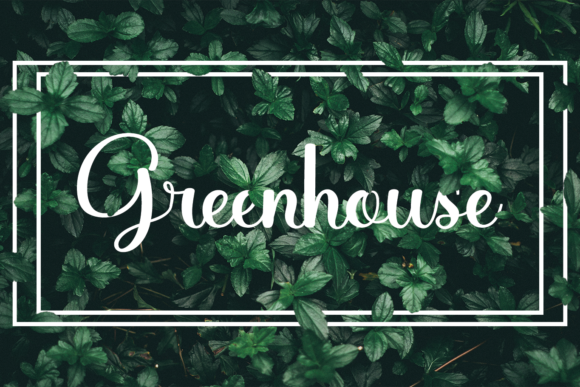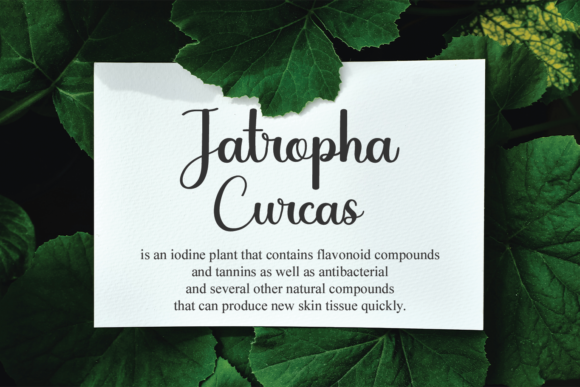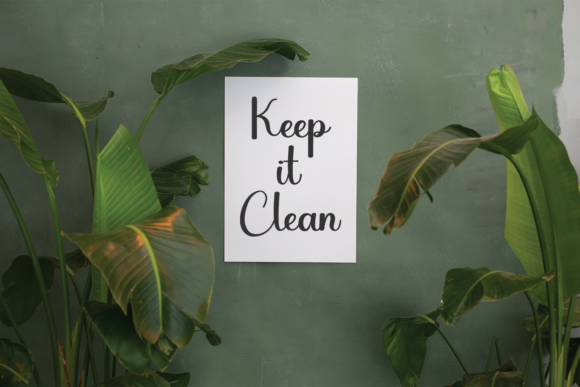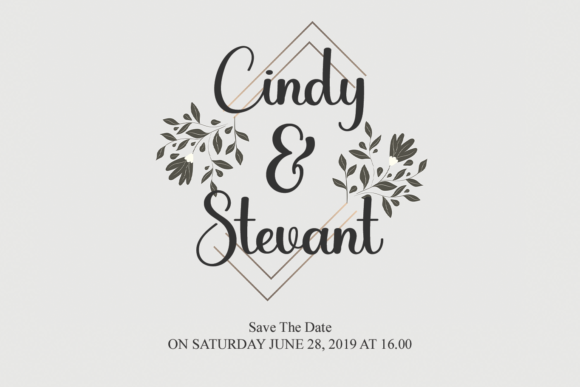
About Greenhouse Font
Greenhouse is a lovely and round-lettered handwritten font. It is the best choice for creating eye catching logos, branding and quotes. Every letter has a unique and beautiful touch, which will make your design come alive!